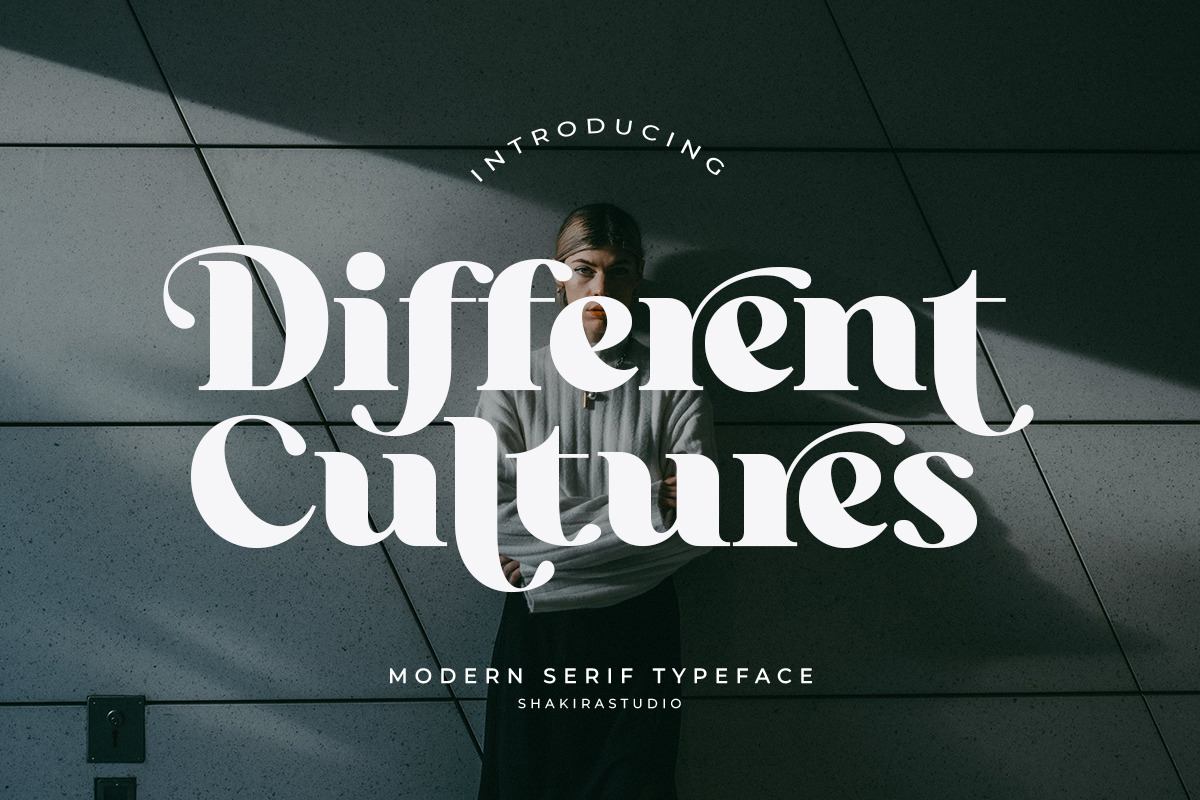
Different Cultures - Modern Serif Font Free Download is a bold and stylish serif typeface that combines classic elements with modern design. With its clean lines, high contrast, and elegant proportions, this font is perfect for branding, editorial design, high-end product packaging, and any project that demands a sophisticated, contemporary aesthetic.
The Different Cultures font has a versatile structure that works well for both large headlines and smaller body text, making it an excellent choice for projects that require both readability and style. It’s ideal for modern branding, fashion, or any creative venture that wants to stand out with elegance.
Bring a touch of modern sophistication to your designs with the bold style of Different Cultures!